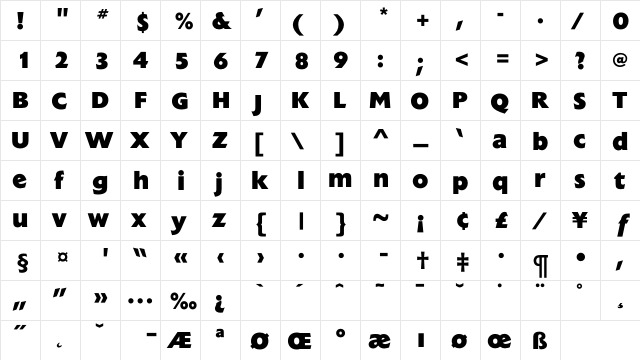
ExtensionExtraBold Regular
Design Context for ExtensionExtraBold Typeface
ExtensionExtraBold is a composed and adaptable typeface that performs quietly and consistently across a wide range of design contexts. Its bold stroke weight gives it real presence on the page.